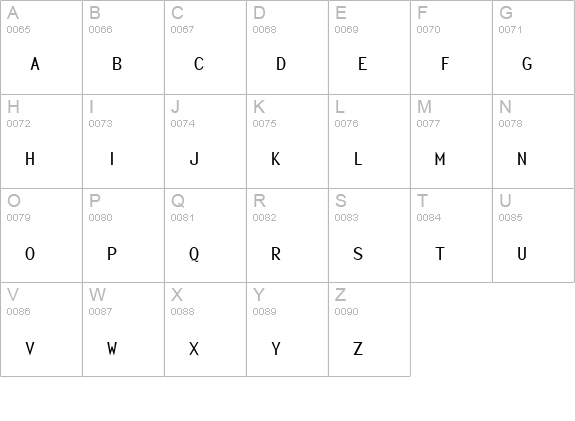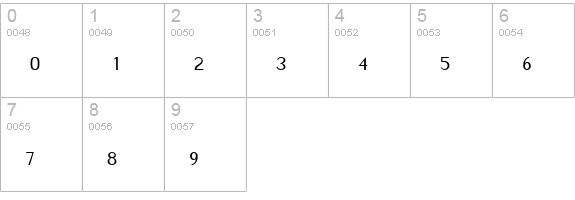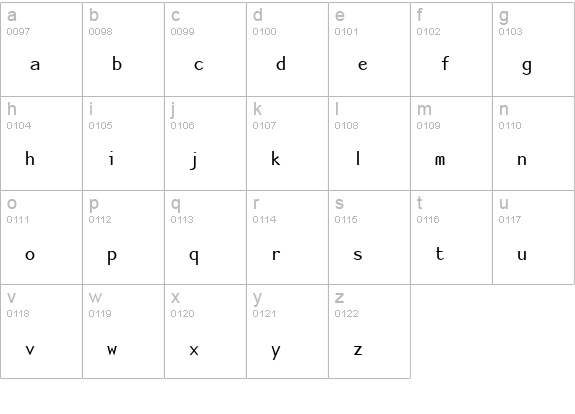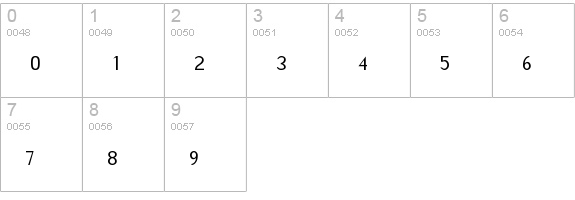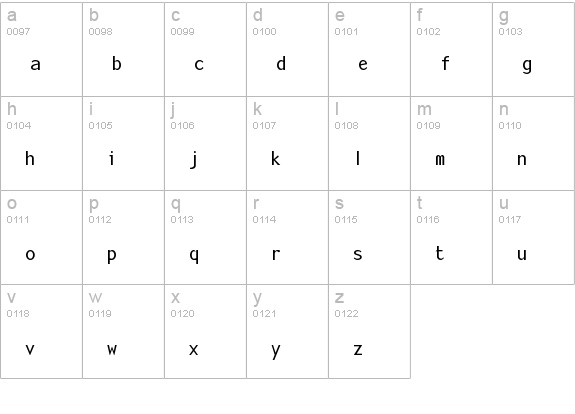
Electric Font Details
The Electric font is a modern and dynamic typeface that exudes energy and innovation. Its sleek lines and sharp edges give it a futuristic and electrifying vibe, making it perfect for projects that require a bold and impactful statement. This versatile font can be used in a variety of designs, from logos to posters to websites. Best of all, the Electric font is available for free download at FontsMarket.com. Whether you're a designer looking to add a touch of excitement to your work or a creative individual wanting to make a statement, this font is the perfect choice. Download it today and unleash the power of Electric in your projects!